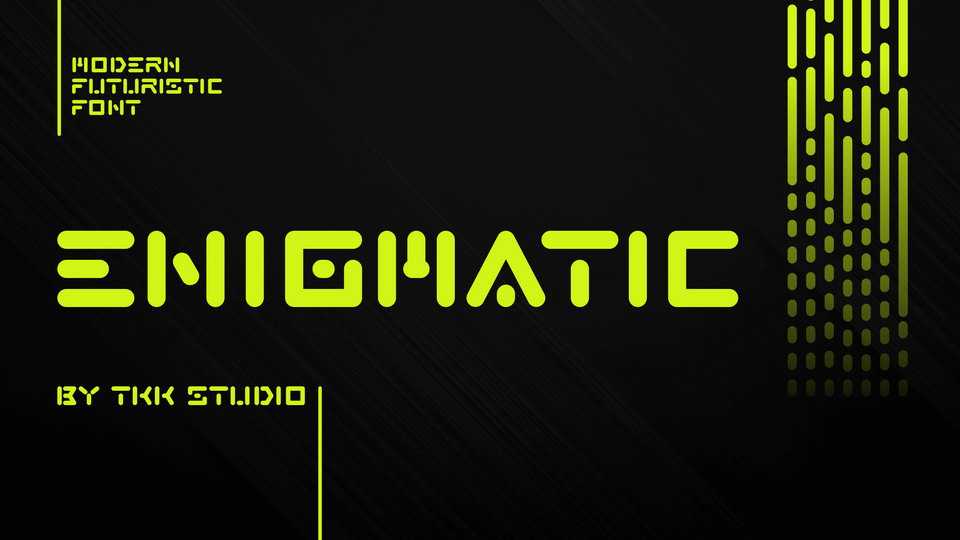
Download Enignatic font, a futuristic display typeface that comes with high tech look with dash-dot style. Enignatic is perfect for high-tech and space related article headline, science fiction, technology expo poster, print material, infographics, etc.